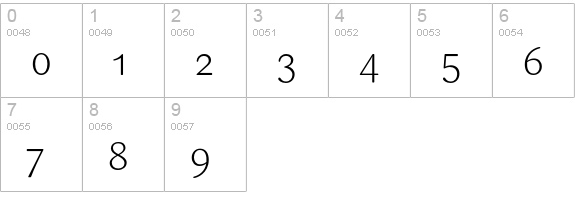
Sari-Light Font Details
Sari-Light is a refined, elegant variant in the Sari typeface family \xE2\x80\x94 well suited to elegant body text, refined sub-headings, and luxury branding.
Introducing Sari-Light, a beautifully crafted font that effortlessly blends elegance with modernity. This remarkable typeface is perfect for creating eye-catching designs, whether it's for branding, editorial projects, or stylish invitations. Sari-Light showcases a delicate balance between thin strokes and graceful curves, exuding a sense of sophistication and finesse. Its clean, minimalist design allows for versatility, making it suitable for a wide range of creative applications. What sets Sari-Light apart is its accessibility - it is freely available to download at FontsMarket.com. This means that designers and enthusiasts alike can easily access this exceptional font without any hassle. With its inclusion in the extensive library of FontsMarket.com, Sari-Light becomes an invaluable addition to any designer's toolkit. This font is meticulously designed to ensure utmost legibility, even at smaller sizes. Its well-defined letterforms and generous spacing allow for comfortable reading, making it ideal for body text in print and digital mediums. Additionally, Sari-Light's elegant curves and precise details shine through when used as display text, adding a touch of sophistication to any design. With Sari-Light, you have the freedom to explore your creativity without limitations. Its versatility, accessibility, and impeccable design make it a must-have font for designers, whether they are working on a professional project or simply expressing their creativity. Download Sari-Light for free at FontsMarket.com and unlock a world of possibilities. Let this font elevate your designs, capturing attention and leaving a lasting impression with its unparalleled beauty and refined aesthetics.